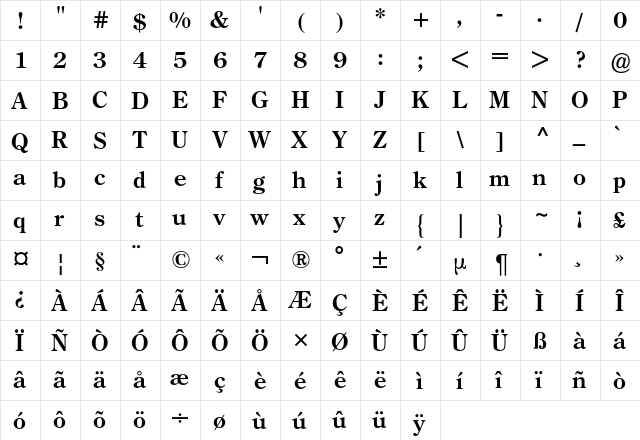
Century Original BQ Regular Font Preview
Century Original BQ Regular
Design Context for Century Original BQ Typeface
Century Original BQ takes a measured approach to typography — its balanced proportions and neutral character make it a reliable workhorse for both digital and print work.
Pro Tip: Pair Century Original BQ with a font of contrasting weight or personality to build a more expressive typographic hierarchy.